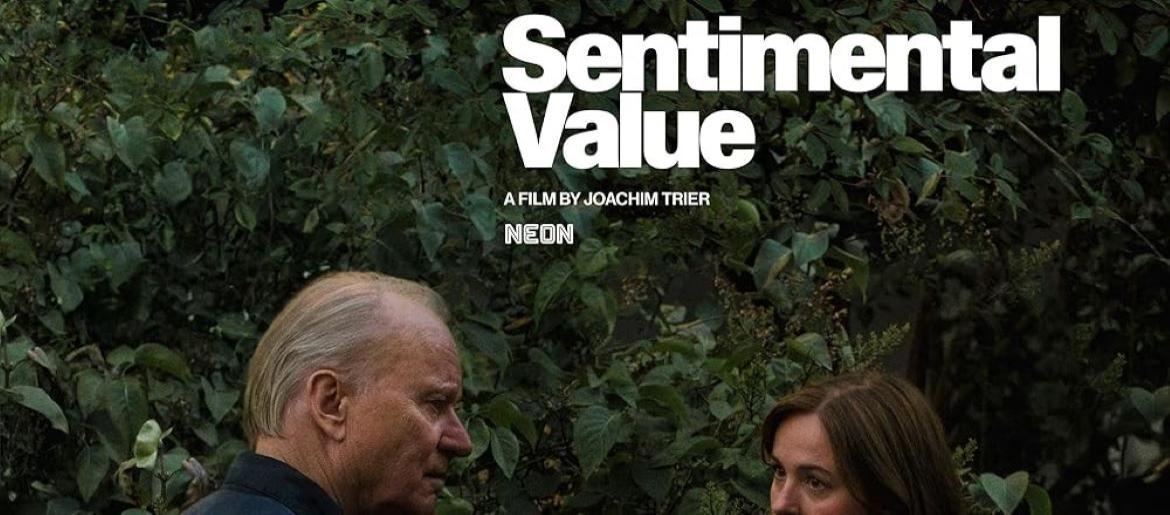
Sentimental Value Font
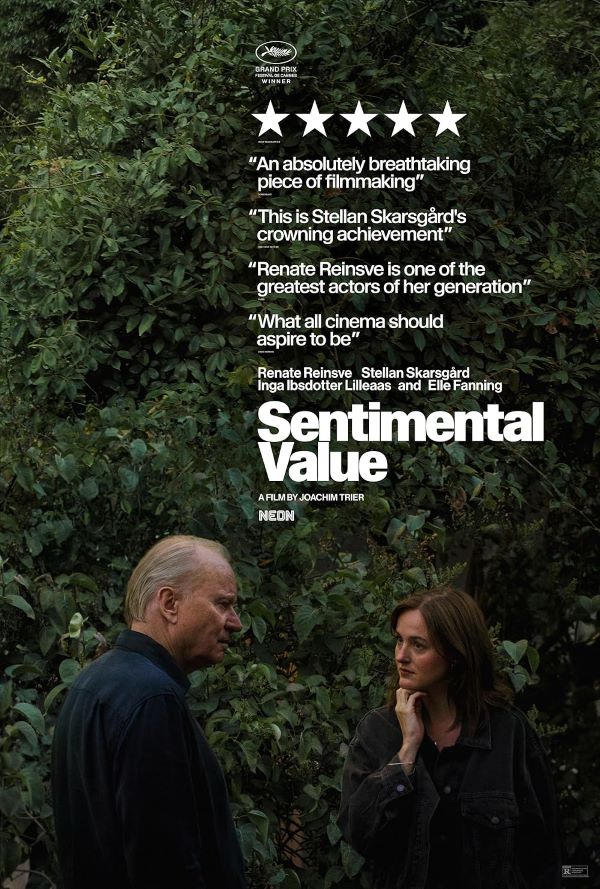
What Font Does Sentimental Value Use?
The Sentimental Value font uses a clean, contemporary look that mirrors the film’s gentle emotional tone. Its simple geometry and soft presence help evoke themes of memory, family, and personal connection. While the closest match is Plain by Optimo, a commercial typeface, we’ve also found a free alternative font that offers a similar aesthetic for personal use.